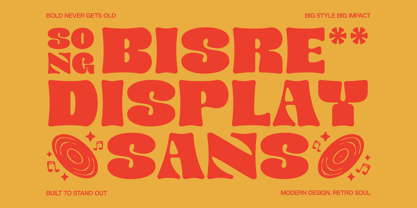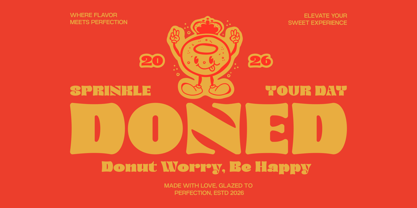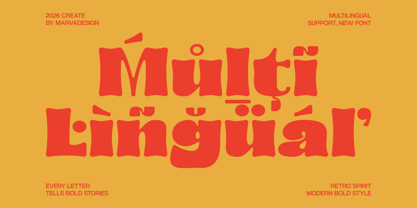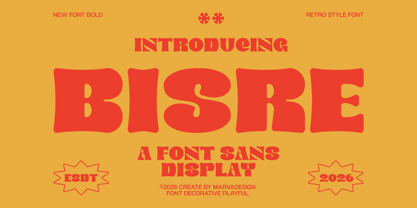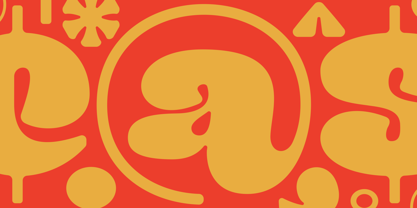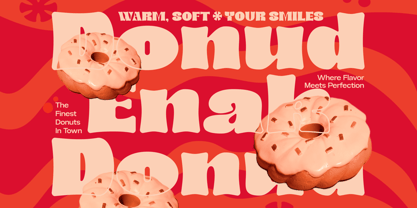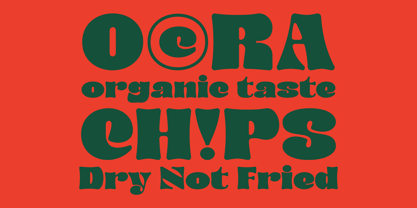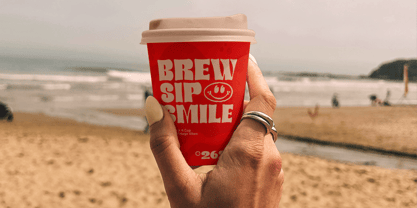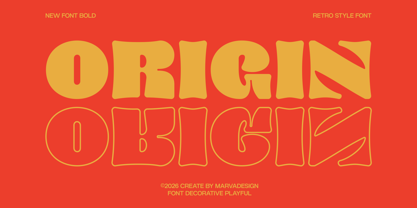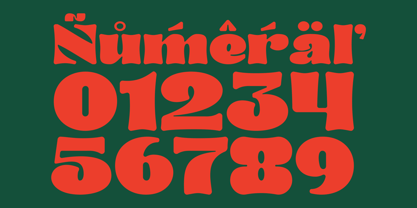
Bisre
Bisre is a bold retro display sans that captures the joyful spirit of vintage design while embracing a fresh contemporary attitude. Built with oversized proportions, chunky letterforms, and soft organic curves, it delivers an instantly recognizable personality that feels nostalgic, playful, and full of confidence. Each character is carefully shaped with subtle irregularities that create a handcrafted appearance, giving the typeface warmth and authenticity without compromising readability.
Inspired by the expressive typography of the late 60s and 70s, Bisre combines rounded geometric construction with smooth, flowing contours that make every word feel lively and energetic. Its bold silhouette naturally commands attention, making it an excellent choice for designs that require maximum visual impact. Whether used in large headlines or eye-catching branding, the font creates a strong presence while maintaining a friendly and approachable tone.
One of Bisre's defining features is its unique balance between softness and weight. Instead of relying on perfectly mechanical forms, each letter introduces gentle curves, slightly uneven edges, and playful terminals that give the typeface movement and personality. These subtle imperfections prevent the font from feeling stiff, resulting in a distinctive handcrafted aesthetic that feels both timeless and modern.
Bisre includes both uppercase and lowercase characters, allowing designers to create expressive typographic combinations while maintaining a consistent visual rhythm. The rounded counters, wide proportions, and bold strokes produce excellent legibility at large display sizes while adding a cheerful, retro-inspired atmosphere to every